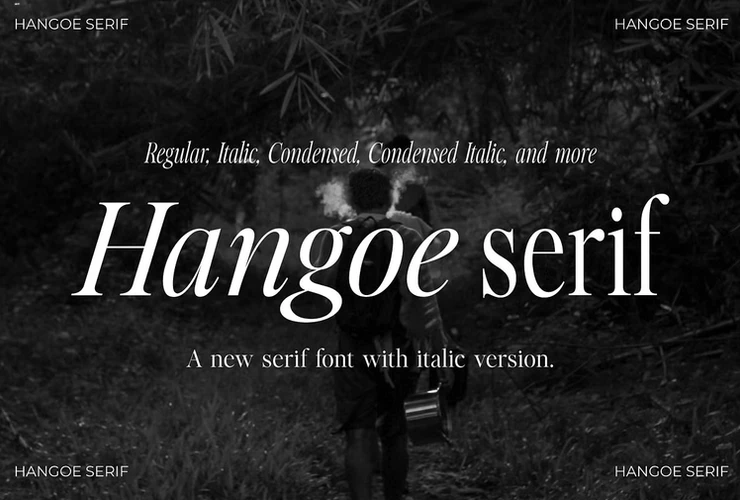
Hangoe: A Timeless and Versatile Serif Typeface for Modern Designs
Hangoe is a refined serif typeface that embodies a perfect blend of classic sophistication and contemporary versatility. Designed to elevate any creative project, this typeface offers eight distinct styles, including Regular, Italic, Condensed, and Text variations, each with their italic counterparts. Whether you’re crafting logos, editorial layouts, branding, or invitations, Hangoe’s clean lines and balanced design make it the ideal choice.
Key Features of Hangoe
Comprehensive Font Styles: Hangoe provides eight well-crafted styles, such as Regular, Italic, Condensed, Condensed Italic, Text, Text Italic, Text Condensed, and Text Condensed Italic. This extensive range allows for flexibility in design, ensuring that every project can find the perfect style within the Hangoe family.
Advanced OpenType Features: Hangoe includes essential OpenType features like kerning, ligatures, and stylistic sets, giving designers the ability to customize typography with precision and creativity.
Multilingual Support: With a full character set that includes uppercase letters, numbers, punctuation, ligatures, and multilingual support, Hangoe is ready for global projects.
Ideal Applications for Hangoe
Branding & Logos: Hangoe’s timeless elegance is perfect for creating sophisticated and memorable brand identities.
Editorial & Print Design: Whether you’re working on magazines, newspapers, or books, Hangoe’s readability and versatility make it a great fit for long-form text.
Invitations & Stationery: The refined aesthetic of Hangoe lends itself beautifully to elegant invitations, greeting cards, and other stationery designs.
Digital & Web Design: Hangoe’s clean lines and balanced design ensure that your text remains legible and visually appealing across all digital platforms.
Why Choose Hangoe?
Hangoe stands out for its ability to bring a touch of classic elegance to modern design projects. The versatility in its styles, coupled with its advanced features and global language support, makes it an essential typeface for designers seeking to create timeless and impactful visuals. Whether you need a sophisticated logo, an elegant invitation, or a polished editorial layout, Hangoe has the flexibility and aesthetic appeal to bring your vision to life.